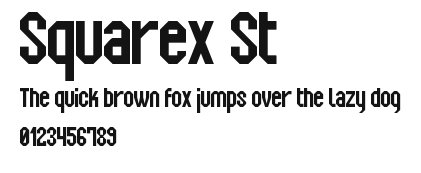
• Font Name: Squarex St
• Full Font Name: Squarex St
• Designer: This font is an original work of southype dot com
About Squarex St.ttf
Squarex St.ttf is a modern, elegant sans-serif font designed for ultimate readability and visual harmony. Perfect for branding, headlines, web design, and print materials.